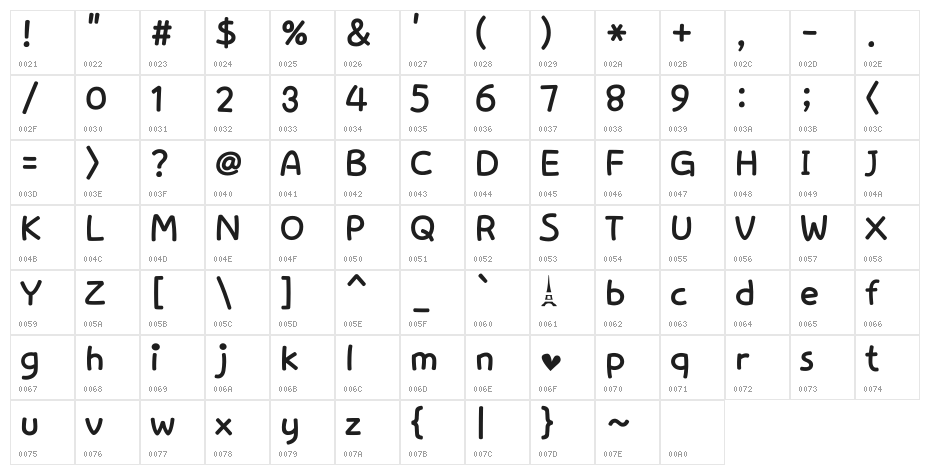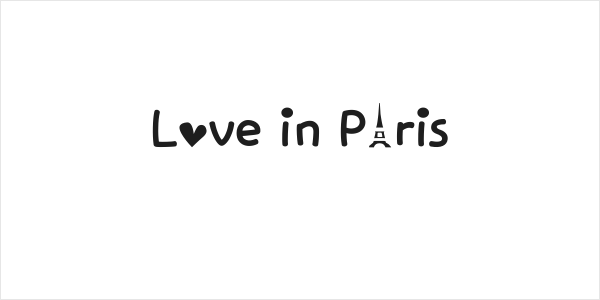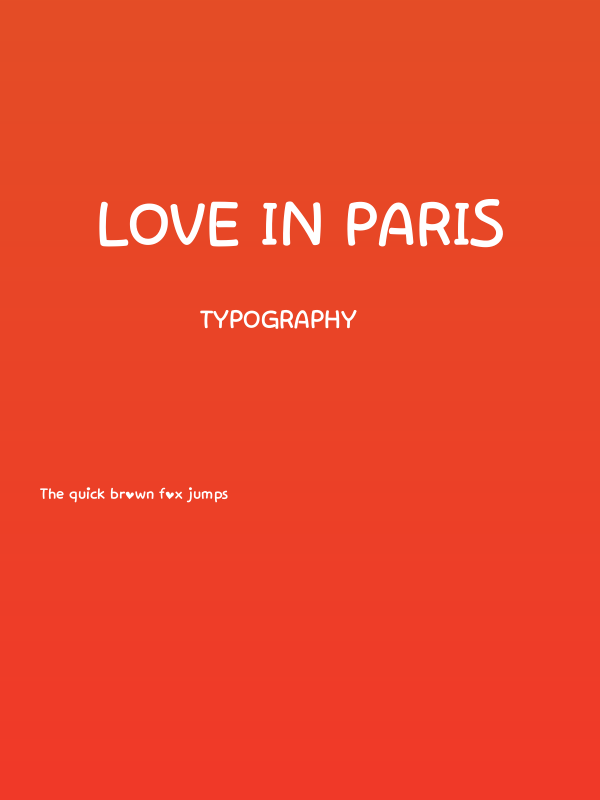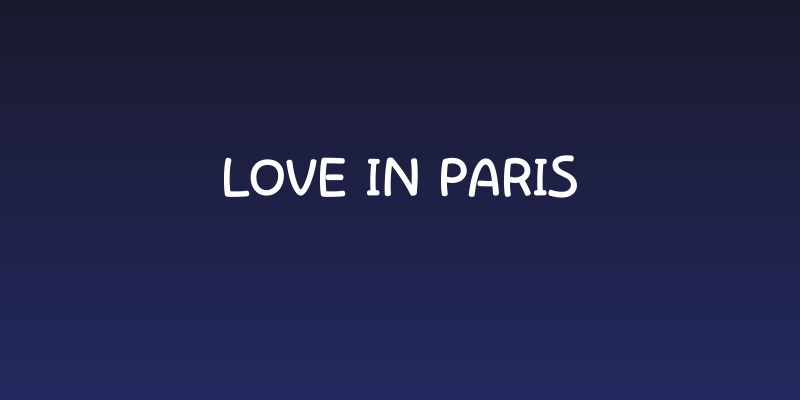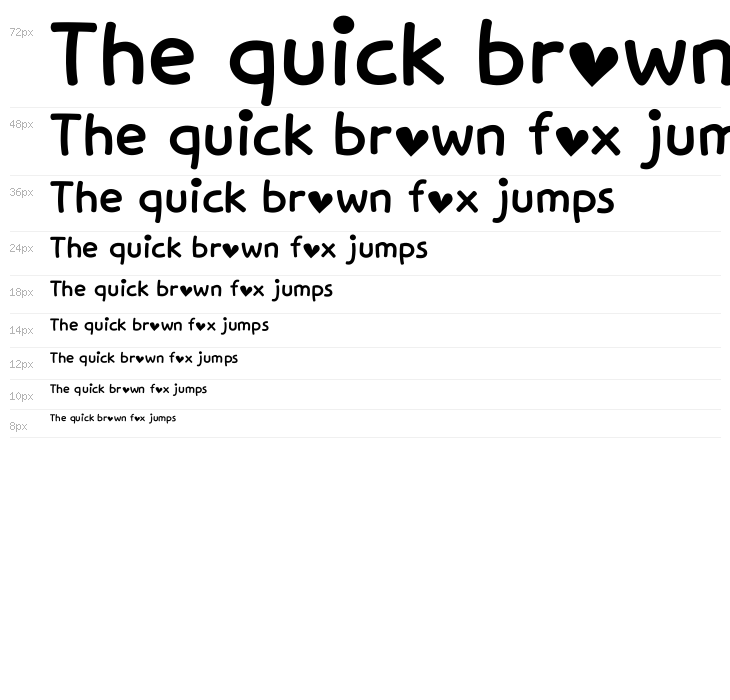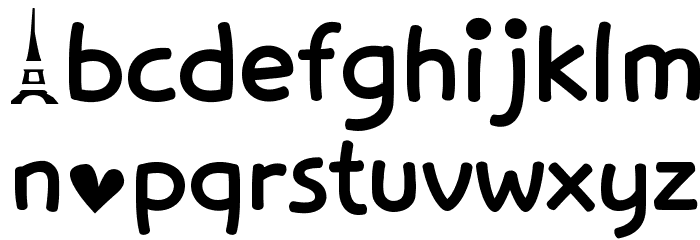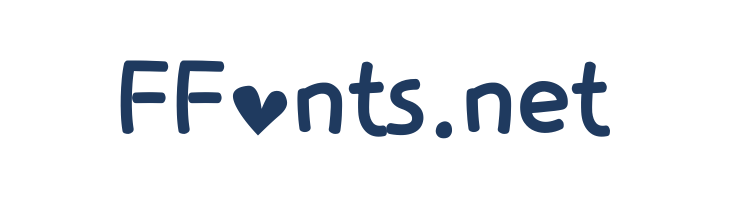
Love in Paris Font
Love in Paris Description
This playful and whimsical font features rounded, smooth edges and a friendly appearance. The characters are slightly irregular, giving a hand-drawn feel that adds charm and personality. The uppercase letters are bold and prominent, while the lowercase letters maintain a consistent style with a touch of quirkiness. The inclusion of unique symbols, such as a heart and an Eiffel Tower, enhances its playful theme. The numbers are clear and easy to read, maintaining the font's overall rounded aesthetic. This font is perfect for projects that require a touch of fun and creativity.
| Proposed Projects | Ideal for greeting cards, children's books, playful branding, and creative posters. |